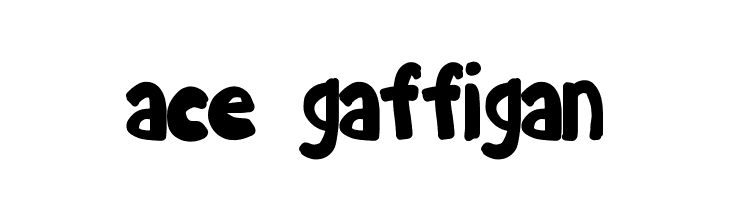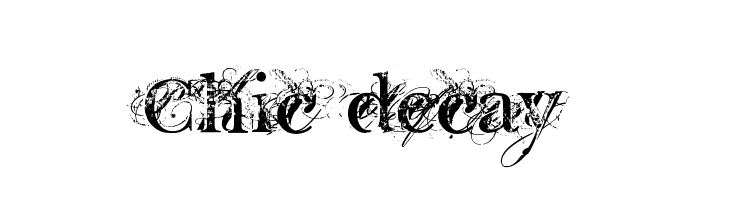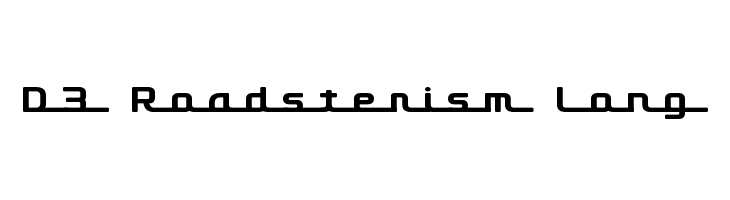
( Fonts by Gyom Seguin - last-soundtrack.daportfolio.com )
A decorative serif font with a distressed, artistic flair.
( Fonts by www.DigitalDreamDesign.net )
A modern, monospaced font with geometric, connected characters.
( Fonts by Emil Bertell - www.fenotype.com )
A bold, three-dimensional geometric font with a strong shadow effect.
( Fonts by twinletter )
A playful, rounded font with bold, smooth curves and a hand-drawn feel.
( Fonts by Andry Andriansyah )
A decorative font with intricate swirls and bold, rounded shapes inspired by traditional batik designs.
( Noah´s Diner )
A pixelated, grid-based font with a retro digital aesthetic.
( Linux Libertine - www.linuxlibertine.org )
A classic serif font with a semi-bold weight, offering elegance and readability.
( Billy Argel - billyargel.com/ )
A dynamic and flowing script font with elegant, elongated letterforms.